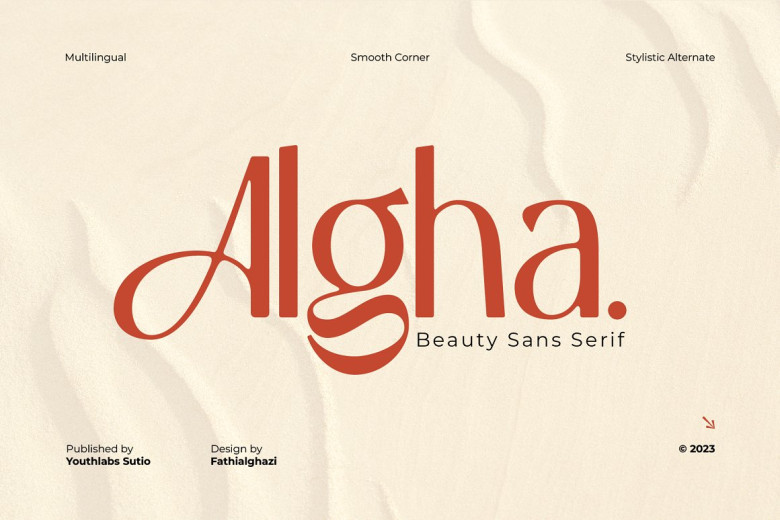
Algha Font
Introducing Algha Beauty Sans Serif Font. Algha is inspired by cottage core, which prides itself on everything beautiful and elegant. Algha’s obtuse angle means that fitful beauty has no fixed point. Algha is suitable for your beauty needs. Algha can be worn plain or decorated with metals.
Algha Sans Serif Font